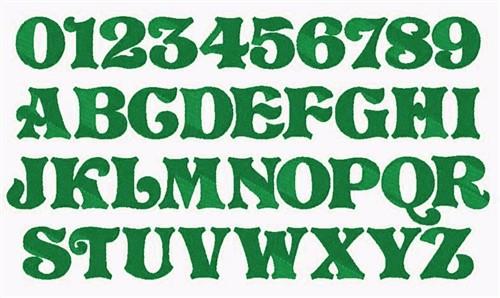
Unicorn Creatives is happy to present Misty Field Embroidery Font - Decorative Handwriting Style - PES, DST & 9 formats machine embroidery font which has The Misty Field embroidery font showcases playful, decorative letters with varying heights and curves in vibrant green. Ideal for stitching on bags and home textiles. Available in PES, DST & 9 formats. included. If you would like to view more embroidery fonts and alphabets please search our embroidery fonts page.